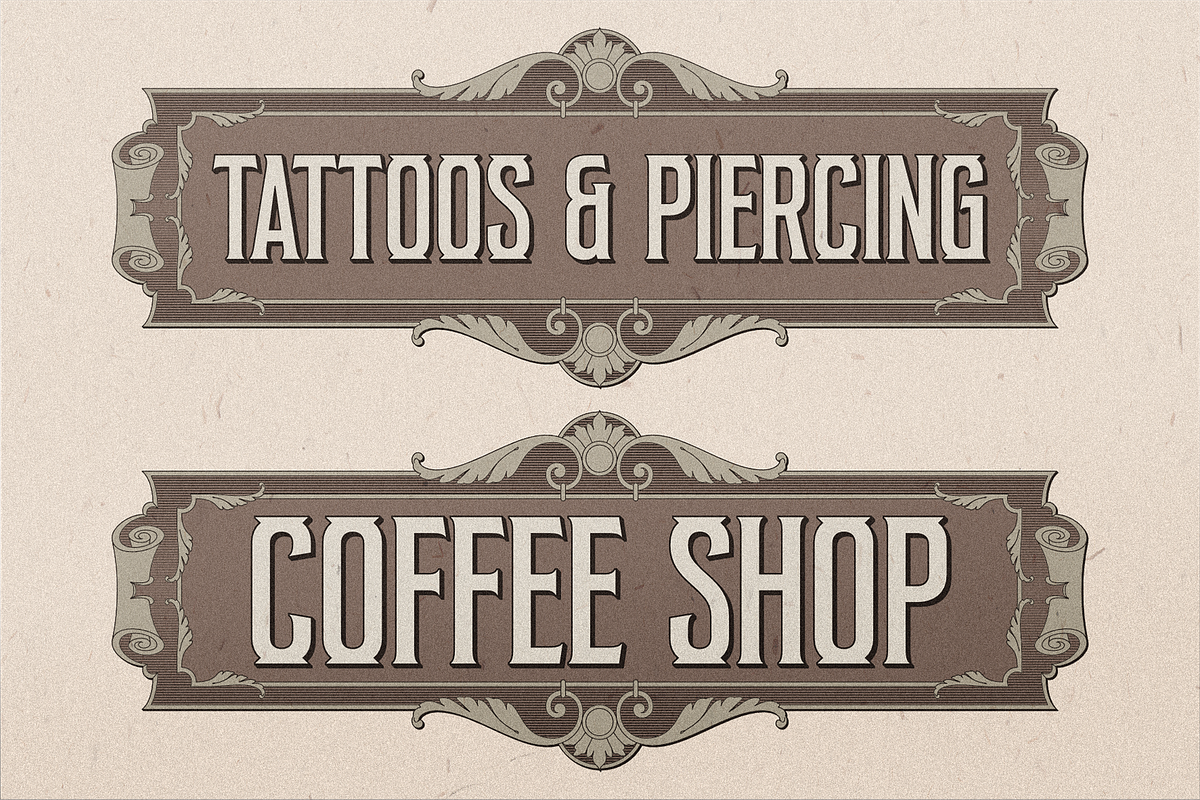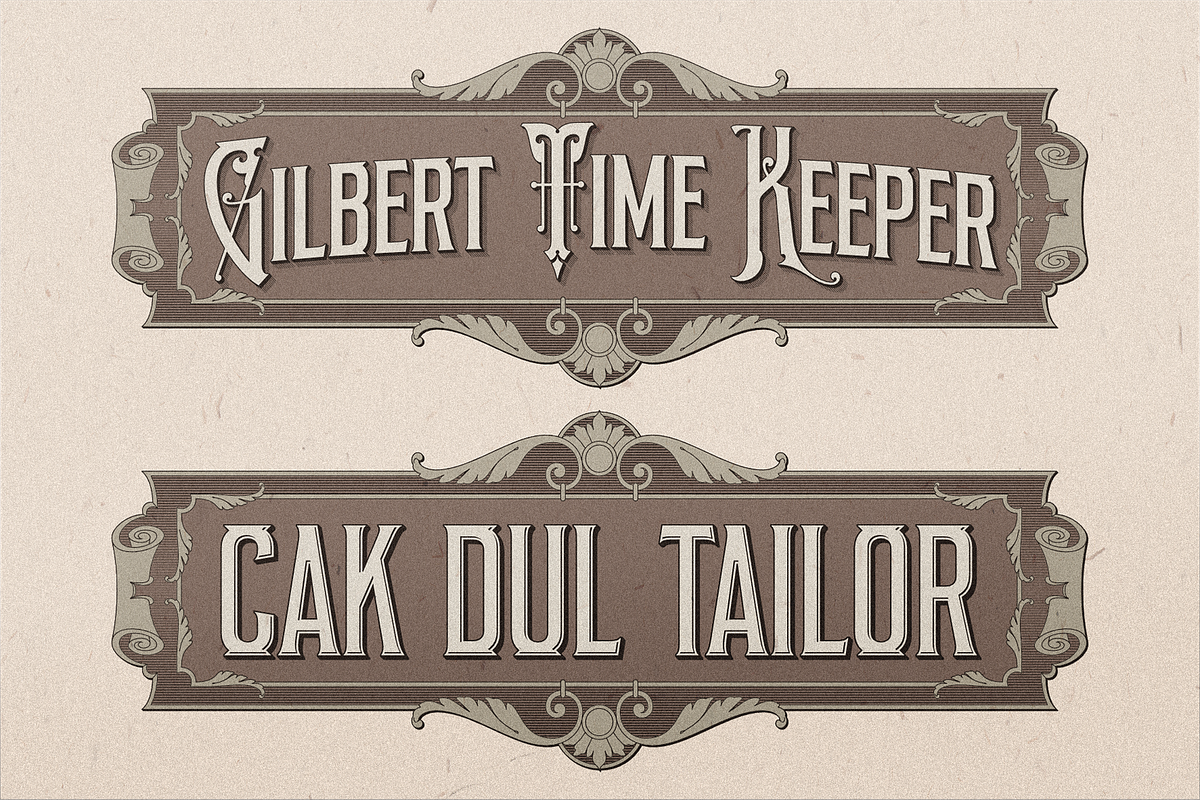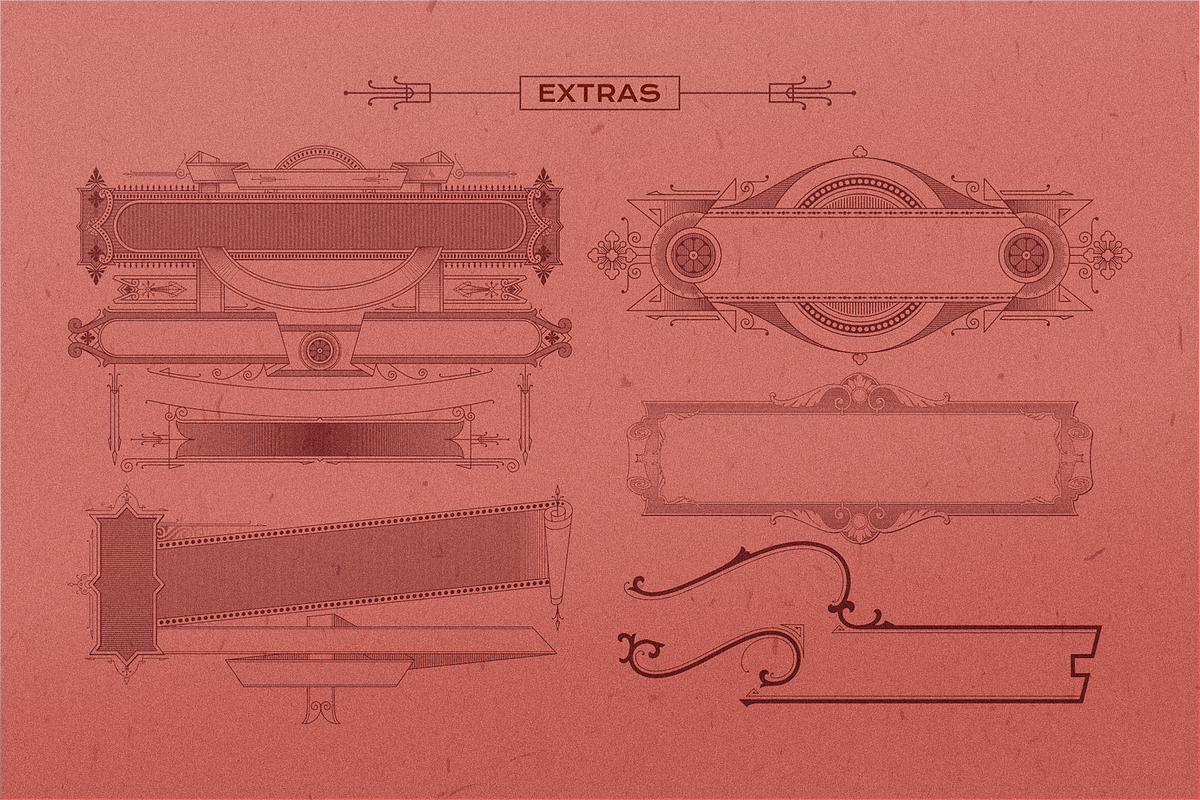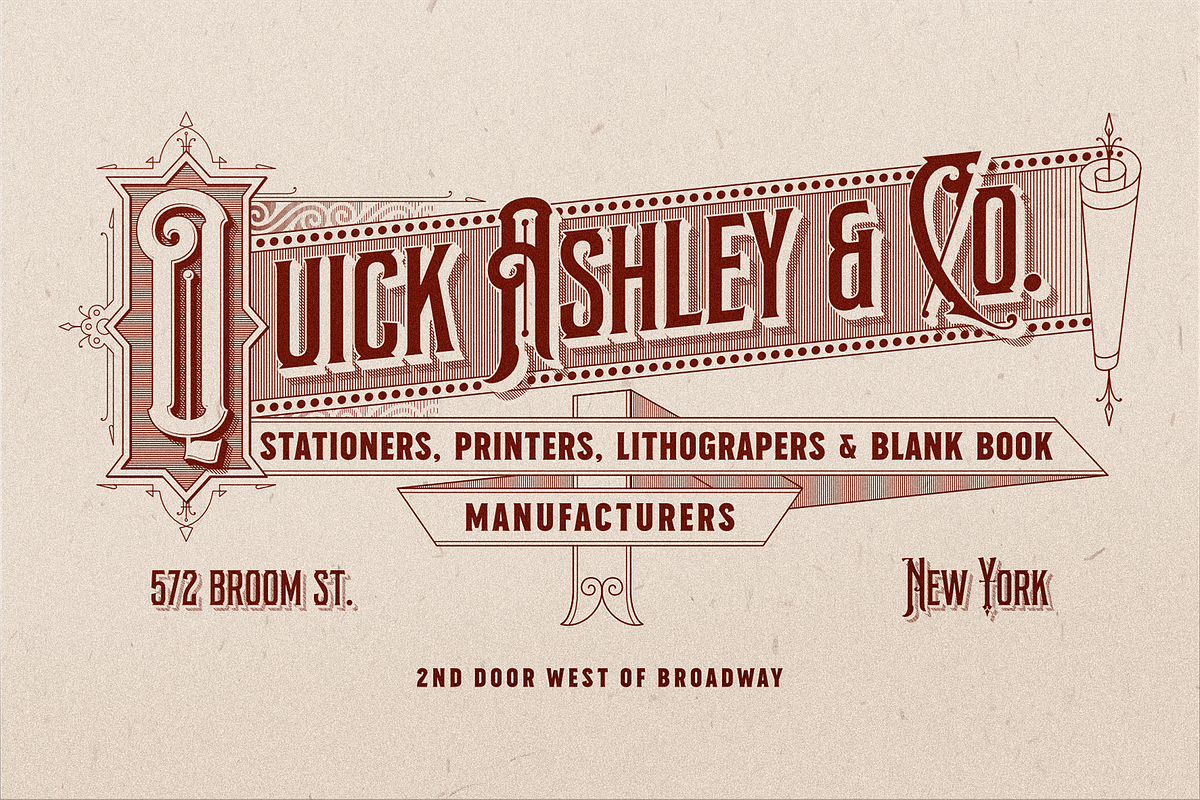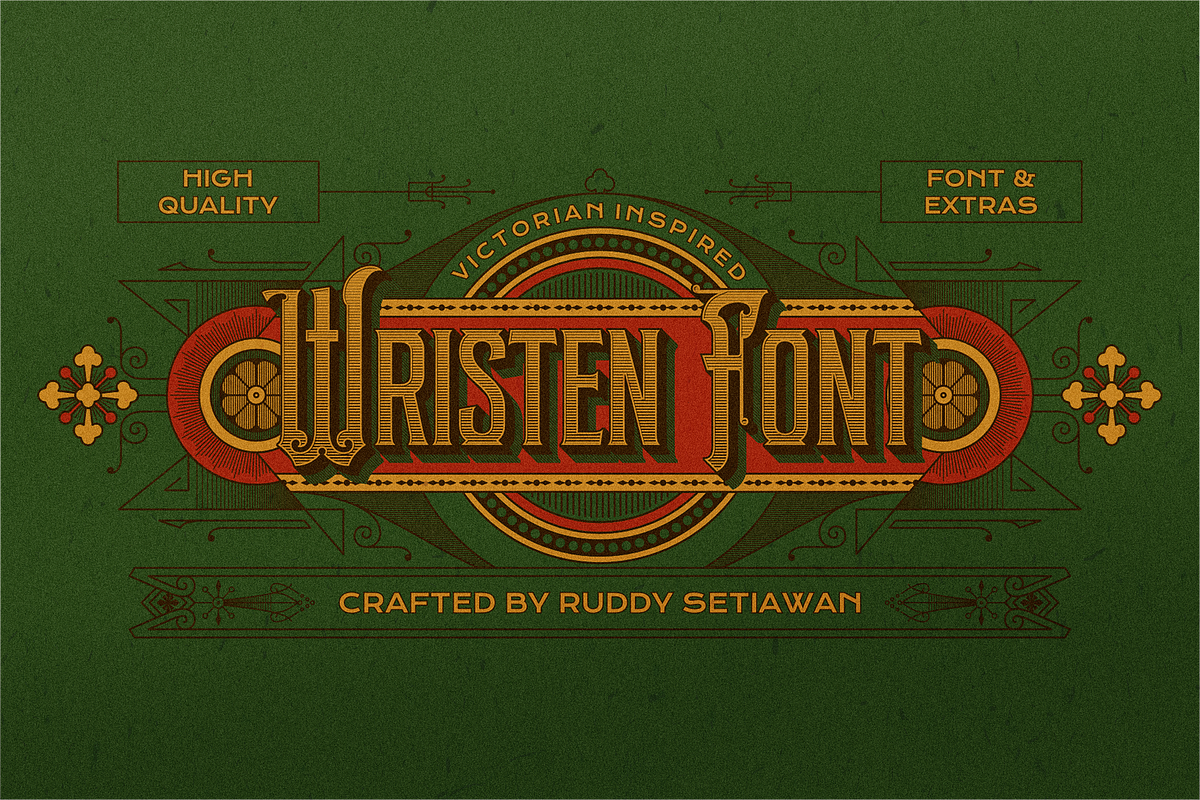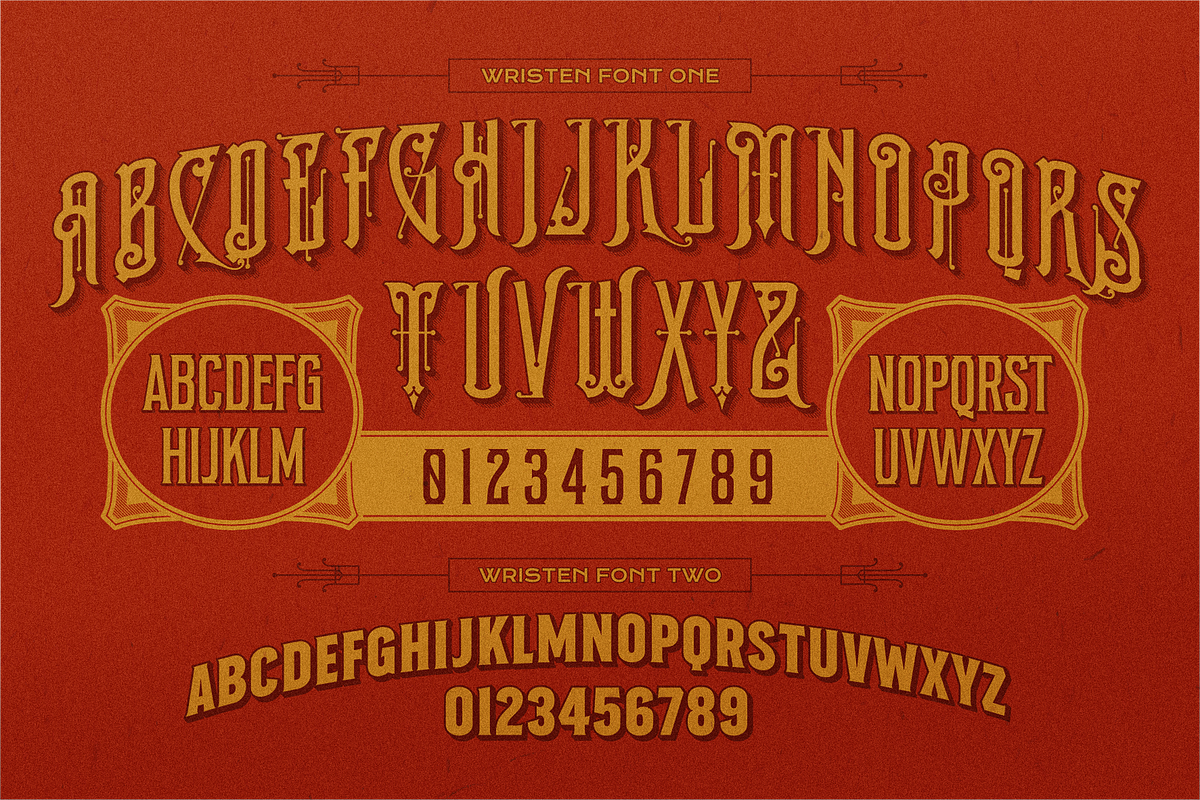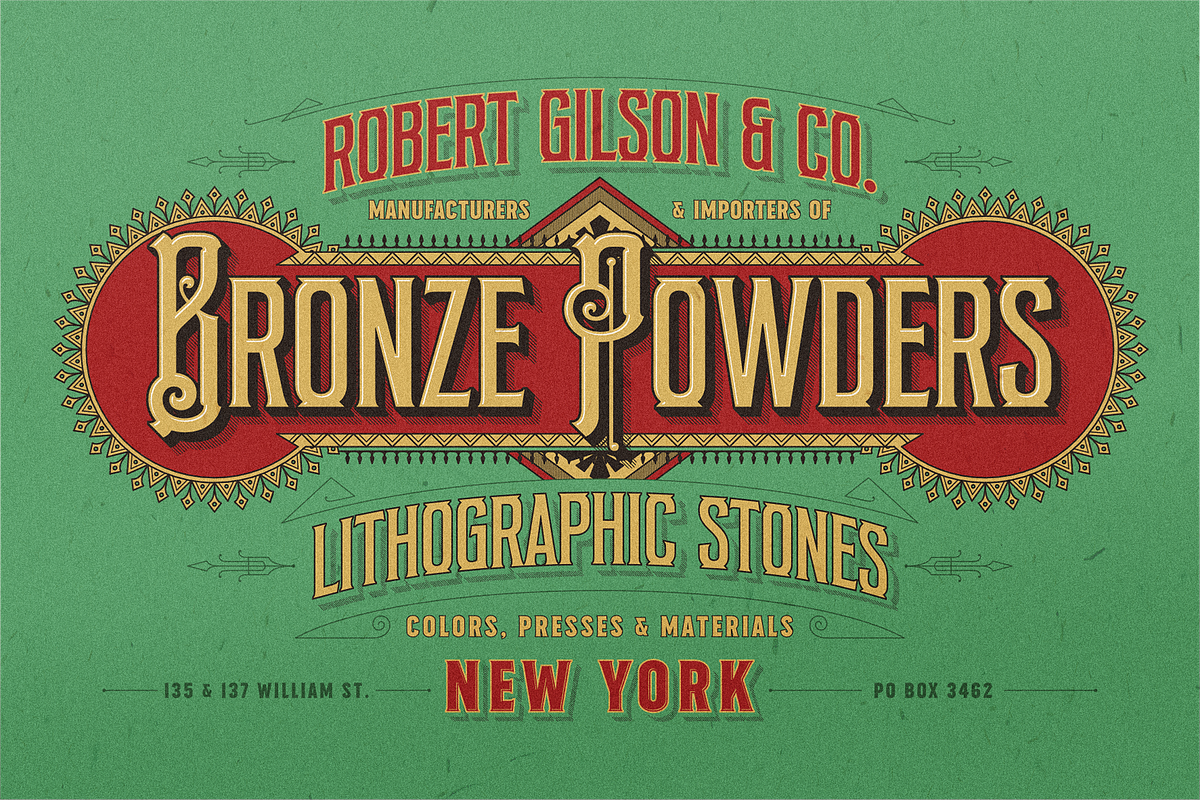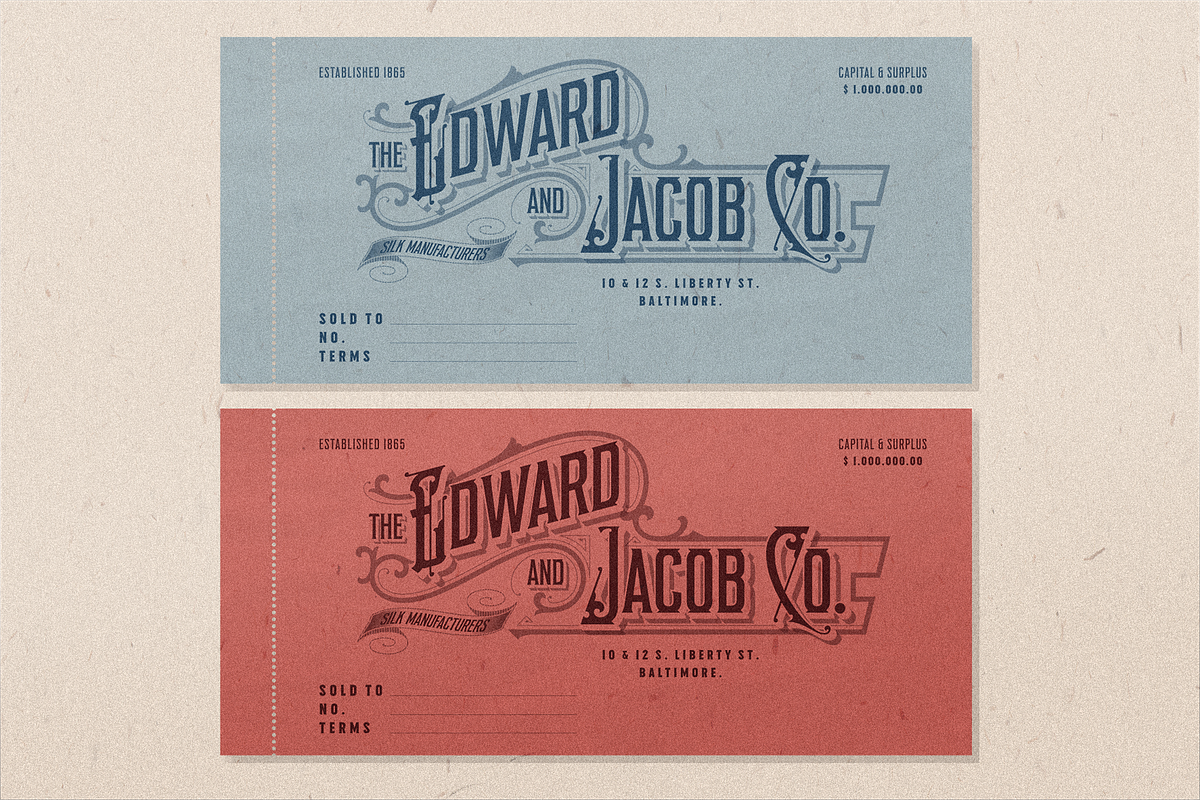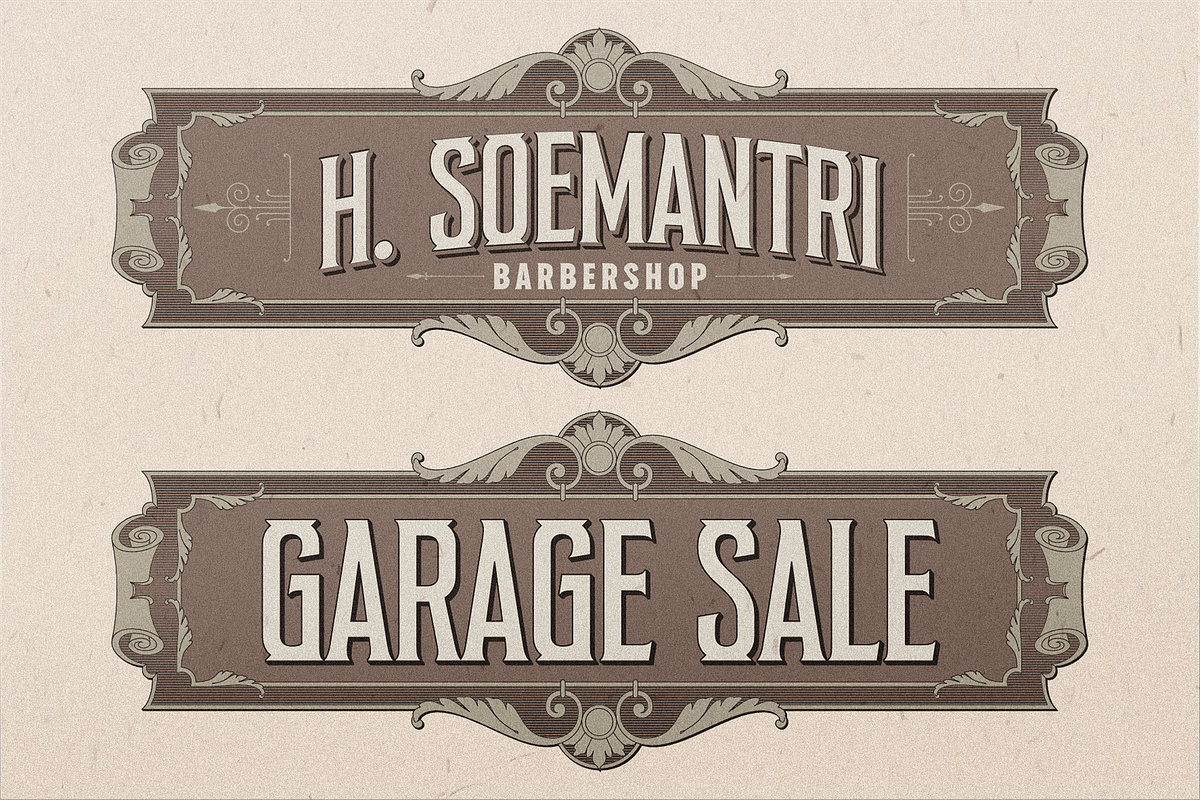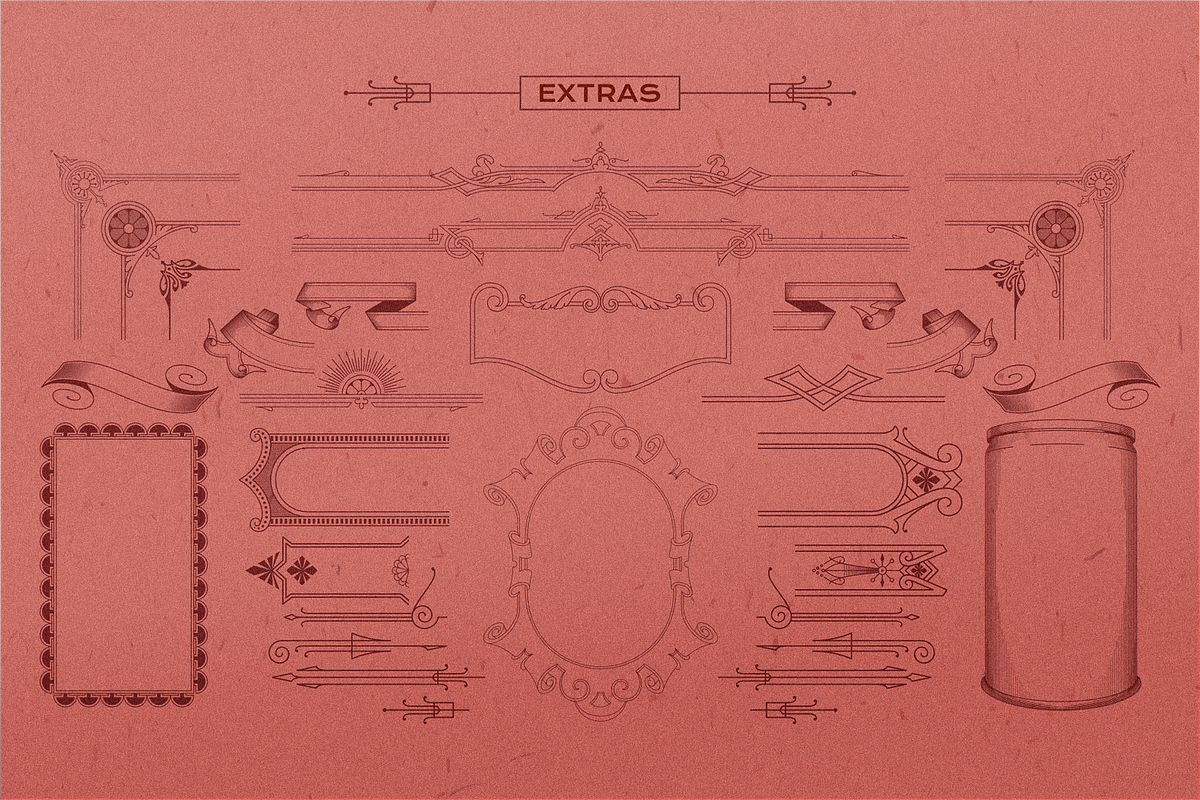
WRISTEN is a new milestone from Ruddy to enter the typeface design universe. The beauty of the 1800-1900 old-style document header and the vintage brand label is chosen by Ruddy to start his debut in this industry.
Born with two fonts, extras, ornaments, and pattern, make the WRISTEN is a perfect armor to serve the design works that inspired by the vintage document header, poster, signage, certificate, label, packaging, logo, vintage store decoration, glass gilding design, anytime you need a solid time-machine to the 1800-1900 era, WRISTEN is the absolute answer, no debate at all.